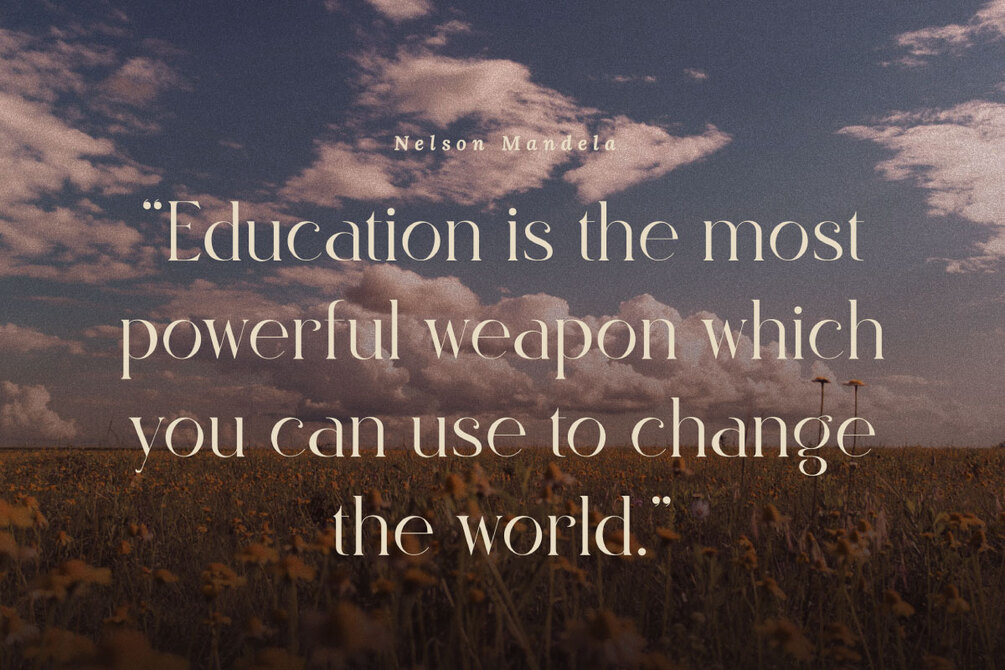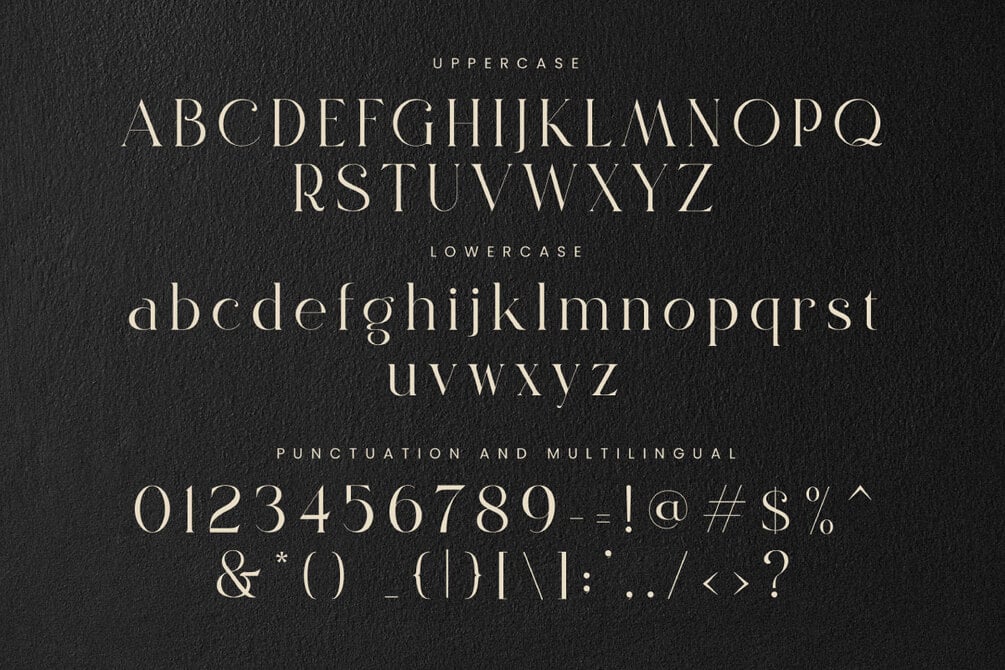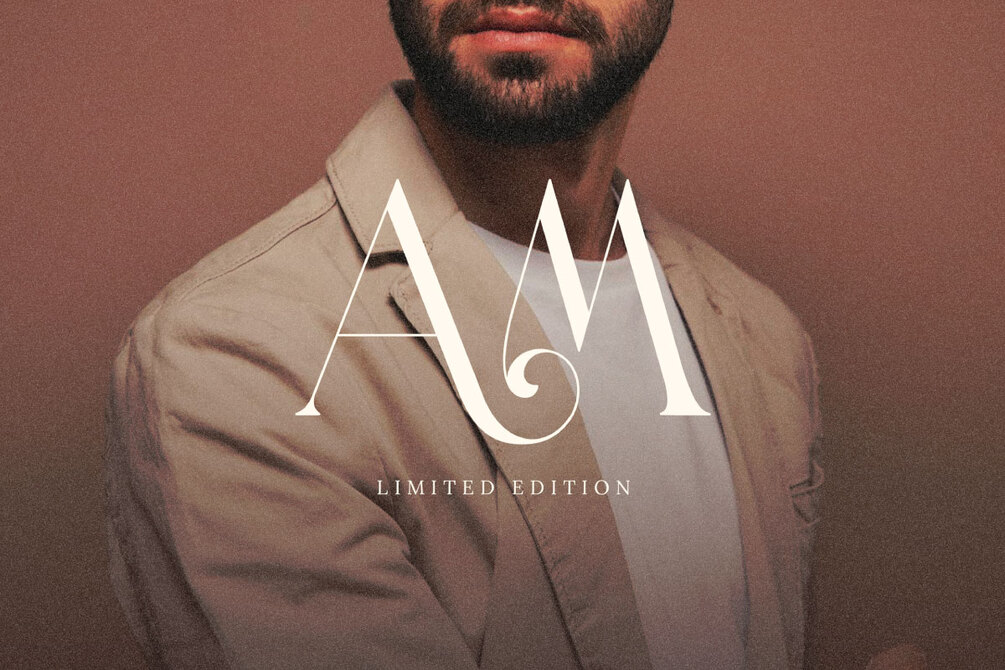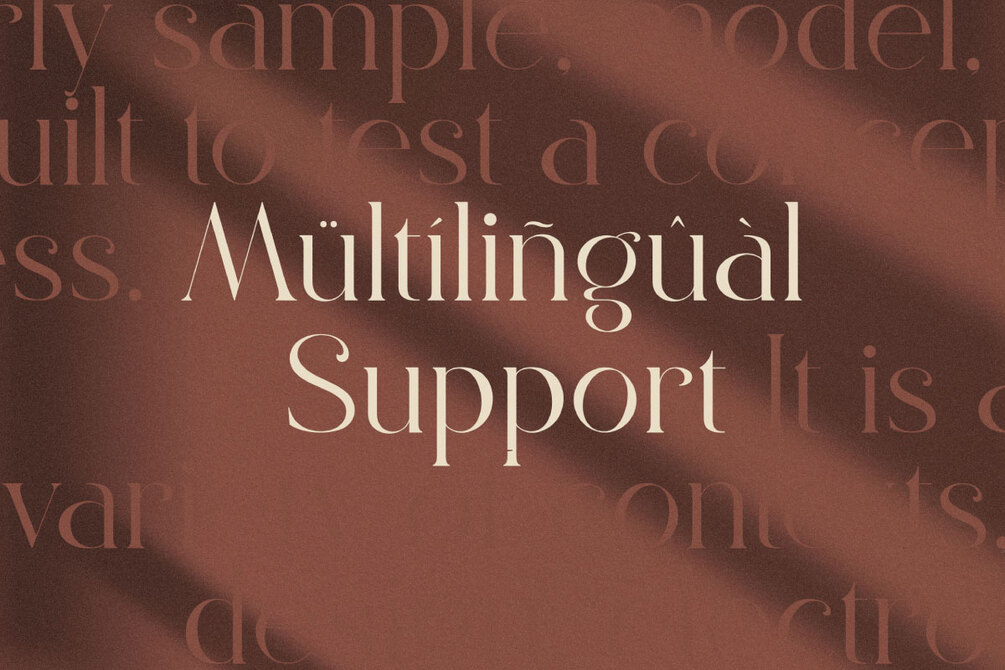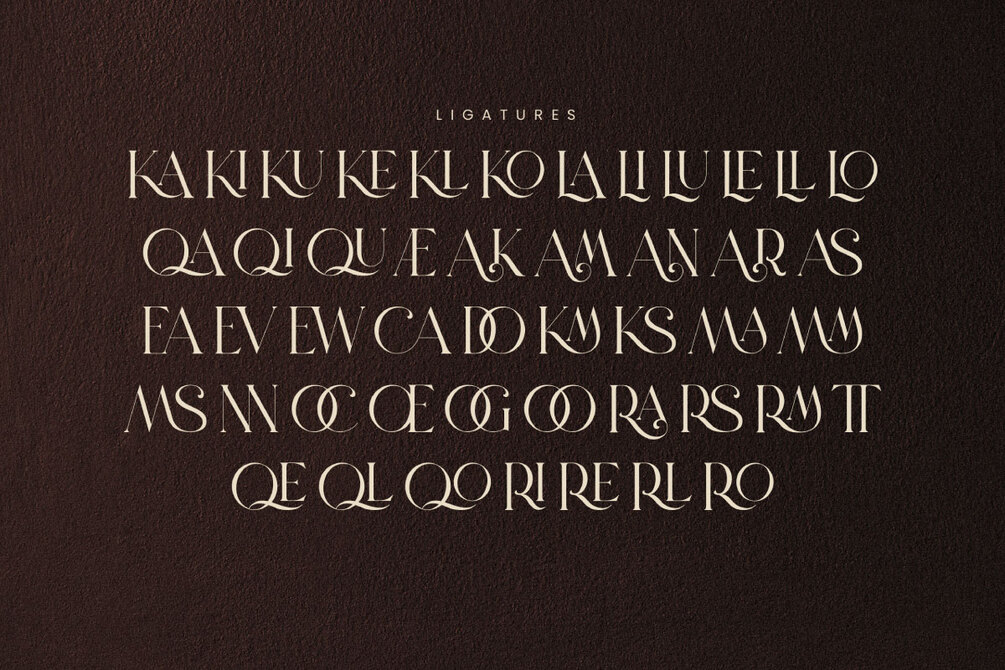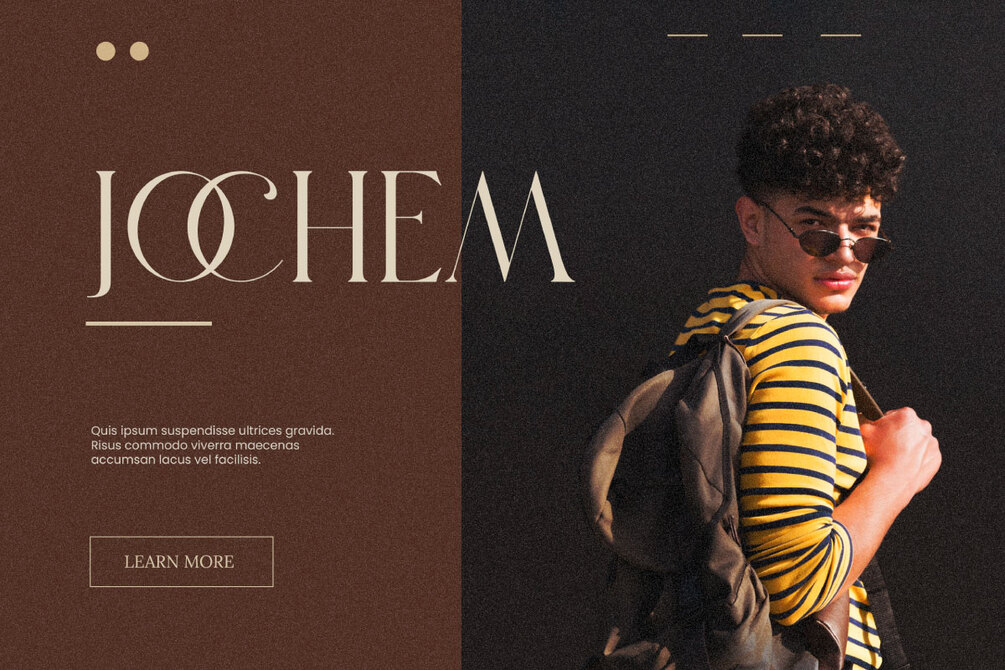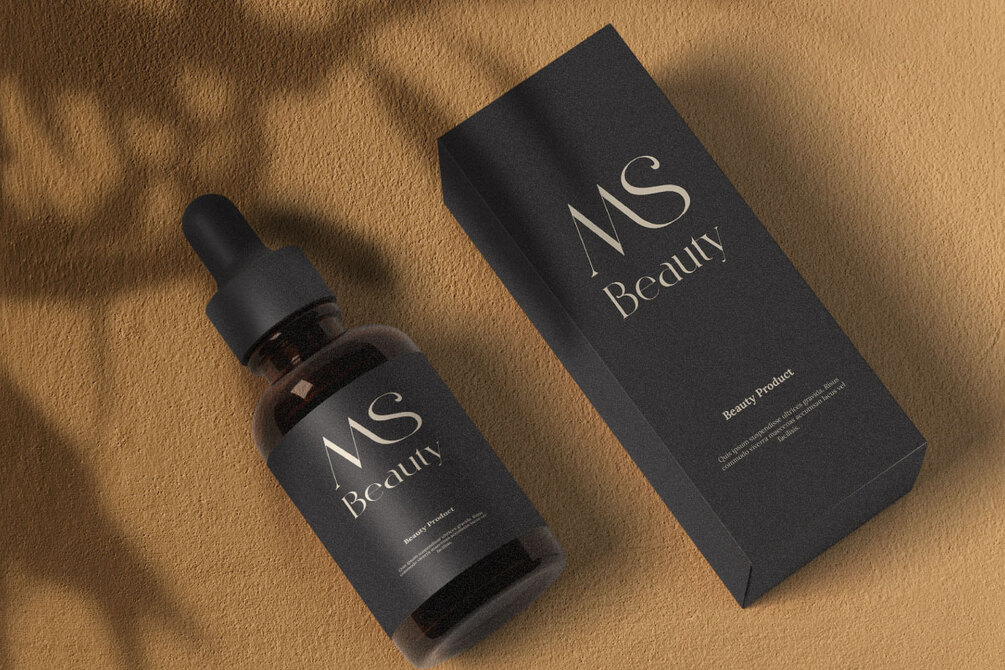
Grance - Luxury Logo Font
Introducing our new serif called “GRANCE” – An elegant serif typeface with a luxurious and clean style is perfect for websites, modern logos, brand identities, social media quotes, wedding, stationery and anything you want!
“GRANCE” Features :
• Uppercase & lowercase
• Punctuation & symbol
• 40+ Ligatures
• Multilingual characters